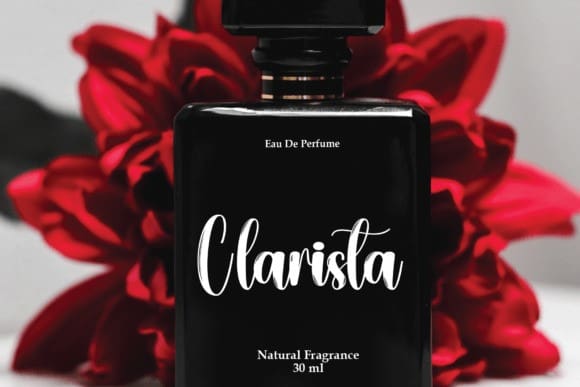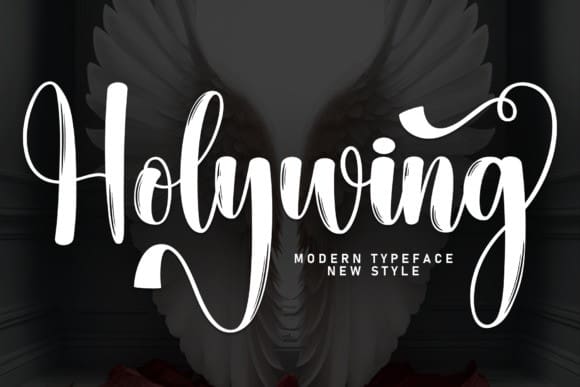
Holywing Script Font
Holywing Script Font is an adorable handwritten font. No matter the topic, this font will be an incredible asset to your fonts’ library, as it has the potential to elevate any creation.